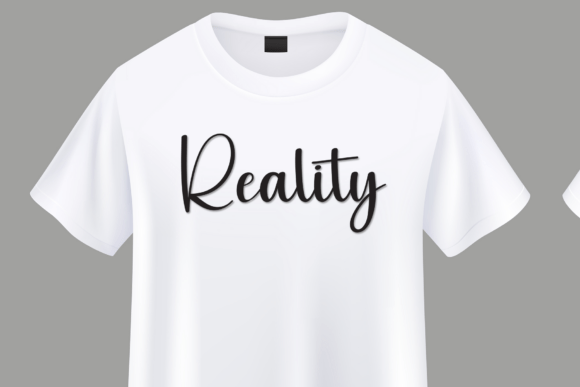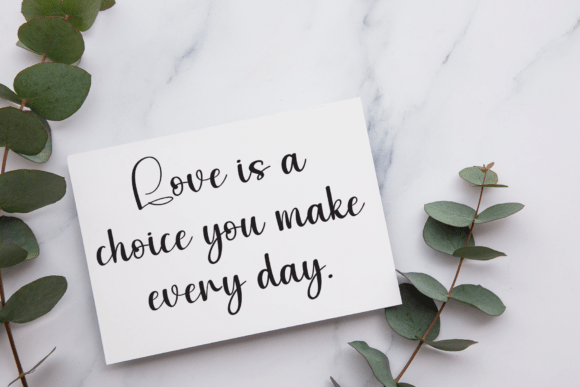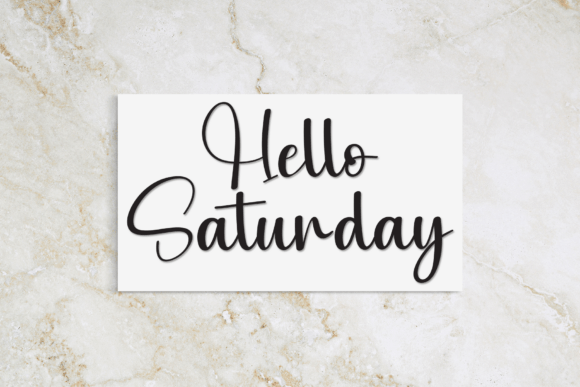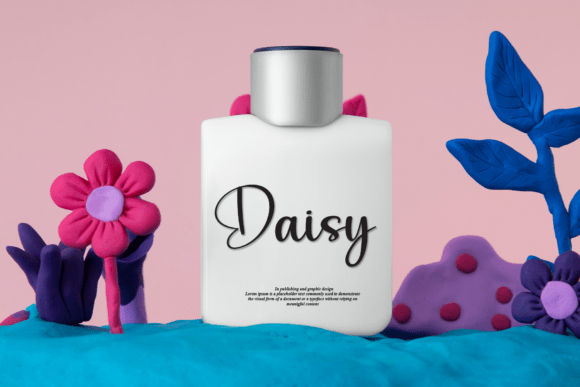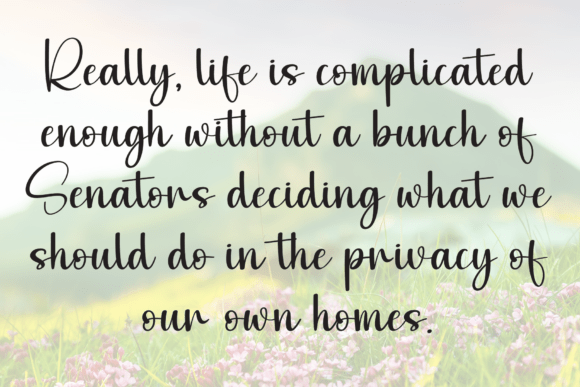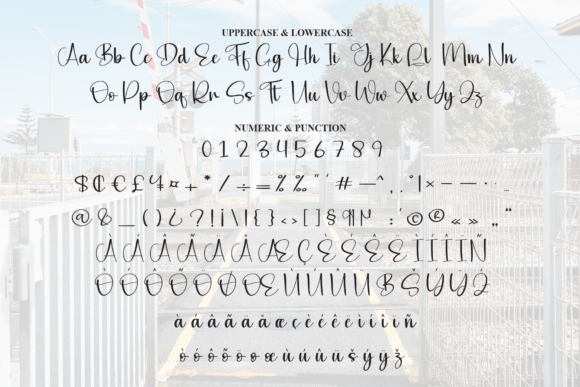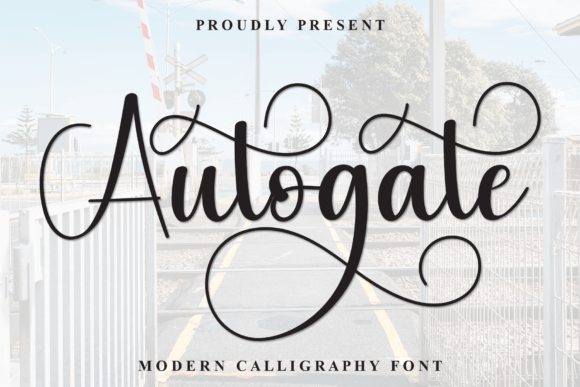
Introducing Autogate Font: Elevate Your Designs with Extraordinary Style
Are you a designer, crafter, or creative enthusiast looking for a unique and stylish font to take your projects to the next level? Look no further than Autogate Font, the latest addition to our collection of special creative products. Our fonts are designed to provide an extraordinary experience, and Autogate Font is no exception. With its cutting-edge style and versatility, this font is perfect for a wide range of applications, from wall displays and wedding invitations to social media posts, logos, advertisements, product packaging, and more.
What Makes Autogate Font Special?
Autogate Font is not just another ordinary font. Its unique and stylish letters are carefully crafted to add a touch of elegance and sophistication to any project. Whether you’re a professional designer or a DIY enthusiast, this font is sure to impress. Here are some of the key features that make Autogate Font stand out:
- Latest Style Letters: Our font features the latest style letters that are perfect for making a statement. With Autogate Font, you can add a touch of modernity and freshness to your designs.
- Encoded PUA Character: Our font features an encoded PUA character, which means you can access it completely without additional design software.
How to Use Autogate Font
Autogate Font is incredibly versatile and can be used in a wide range of projects, including:
- Wall displays
- Wedding invitations
- Social media posts
- Logos
- Advertisements
- Product packaging
- Product designs
- Labels
- Photography
- Watermarks
- Invitations
- Stationery
- Any project that requires tasteful handwriting
- Unique Style: Autogate Font features a unique and stylish design that’s sure to make your projects stand out.